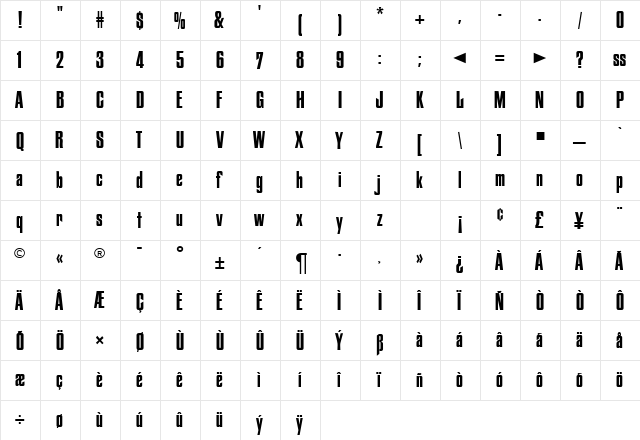
Fiord DB Regular
Design Context for Fiord DB Typeface
Fiord DB is a composed and adaptable typeface that performs quietly and consistently across a wide range of design contexts.